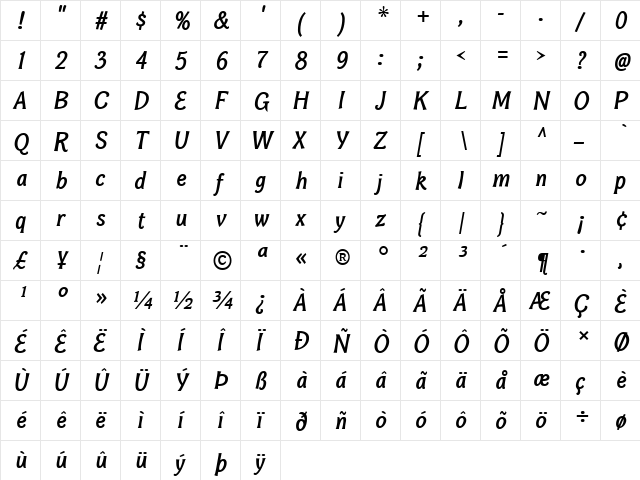
Bonobo Bold Italic
Design Context for Bonobo Typeface
Bonobo takes a measured approach to typography — its balanced proportions and neutral character make it a reliable workhorse for both digital and print work. The dynamic lean of this cut emphasises speed and emphasis in any layout. Its bold stroke weight gives it real presence on the page.
Pro Tip: Use Bonobo for emphasis, pull quotes, and subheadings where its slanted energy can add rhythm to the layout.